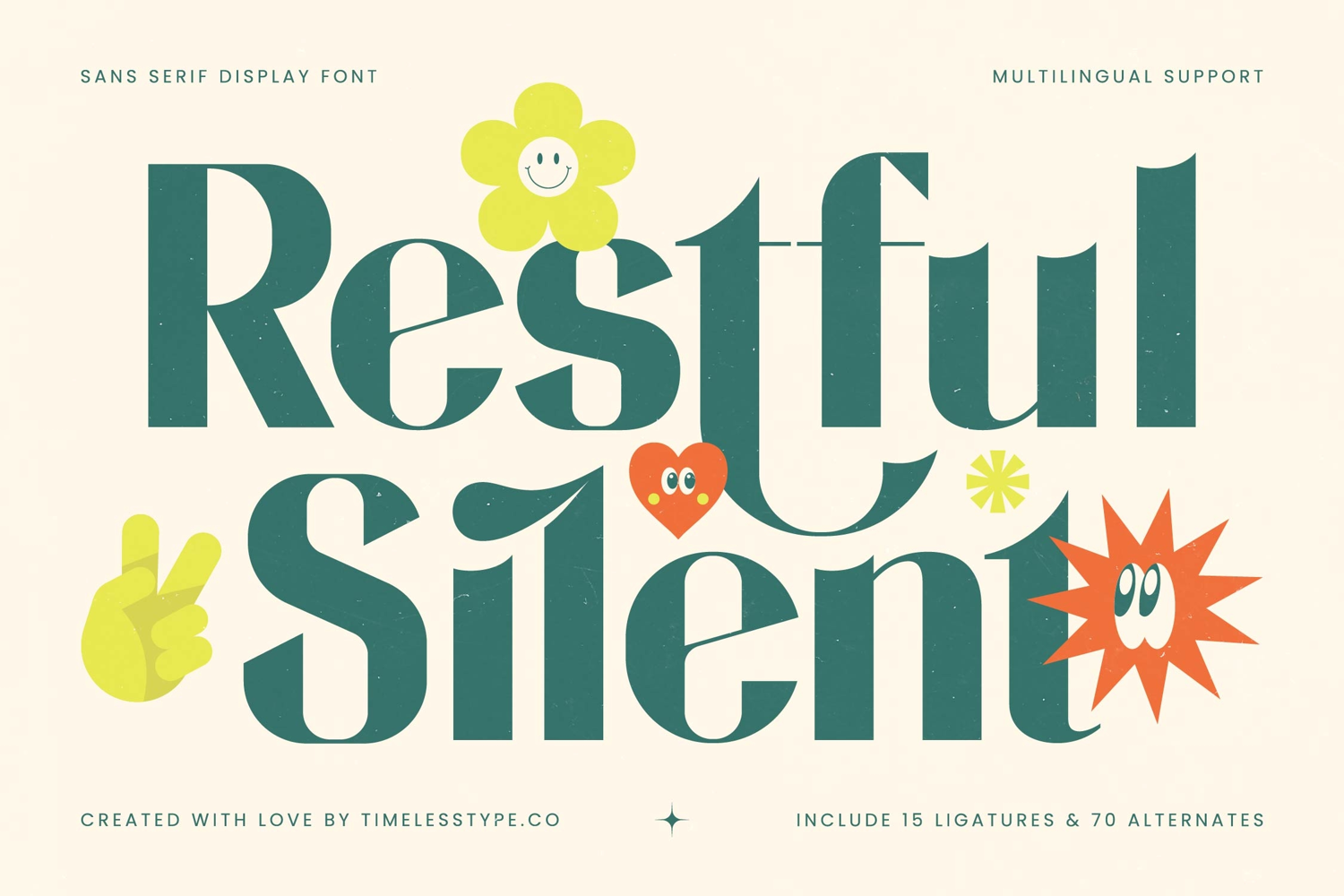
Restful Silent - Sans Serif Display Font
Restful Silent is a sans serif display font that balances boldness, clarity, and playful character, making it a versatile choice for a wide range of design projects. With its clean geometric strokes, wide proportions, and expressive alternates, this font carries a modern sensibility while also embracing a touch of retro charm. It includes 15 ligatures and 70 alternates, ensuring designers have plenty of creative flexibility to craft unique, eye-catching compositions that stand apart from ordinary typography. The letterforms are deliberately structured for strength and visibility, yet softened by subtle curves and creative detailing that keep the font approachable and stylish.
This typeface is highly effective for headlines, where its bold shapes instantly command attention across posters, banners, and digital campaigns. Its distinctive alternates make it especially appealing for movie titles and film posters, adding cinematic personality and memorability. In the world of editorial design, Restful Silent brings striking elegance to magazine covers, feature spreads, and section headers, giving typography a strong role in shaping visual storytelling. For branding and logo design, the font delivers a confident yet friendly voice, perfect for lifestyle brands, fashion labels, or boutique products that want to appear both bold and approachable.
Restful Silent also thrives in packaging design, where it adds playful sophistication to products ranging from food and beverages to cosmetics and lifestyle goods. Its versatility makes it an excellent choice for advertising campaigns, where slogans and taglines need to be not only clear but also infused with creativity and personality. Thanks to its multilingual support, this font adapts seamlessly to global projects, making it ideal for brands and campaigns that span across languages and cultures.
Beyond print, Restful Silent shines in the digital realm. It is highly effective for social media graphics, ensuring posts and stories stand out with clarity and style. Its playful ligatures and decorative alternates add uniqueness to album covers, event flyers, and cultural projects, aligning typography with themes of positivity, energy, and bold individuality. For websites and online platforms, it can be used in headers and promotional materials to reinforce strong visual identity while keeping a sense of charm.
What sets Restful Silent apart is its ability to be more than just text—it becomes a design element in itself. Its bold sans serif foundation guarantees readability and impact, while the variety of alternates allows for continuous experimentation. Whether designers are creating minimalist modern layouts or nostalgic retro-inspired visuals, this font adapts effortlessly, ensuring that words are never just read but also felt and remembered.
In conclusion, Restful Silent is a versatile display font that performs beautifully across multiple applications. From headlines, film titles, magazines, branding, packaging, and advertising to social media and digital design, it ensures every project has a strong, stylish, and unforgettable typographic voice. With its unique blend of bold structure, playful alternates, and creative flexibility, Restful Silent is the perfect choice for designers who want to transform typography into an expressive visual statement.